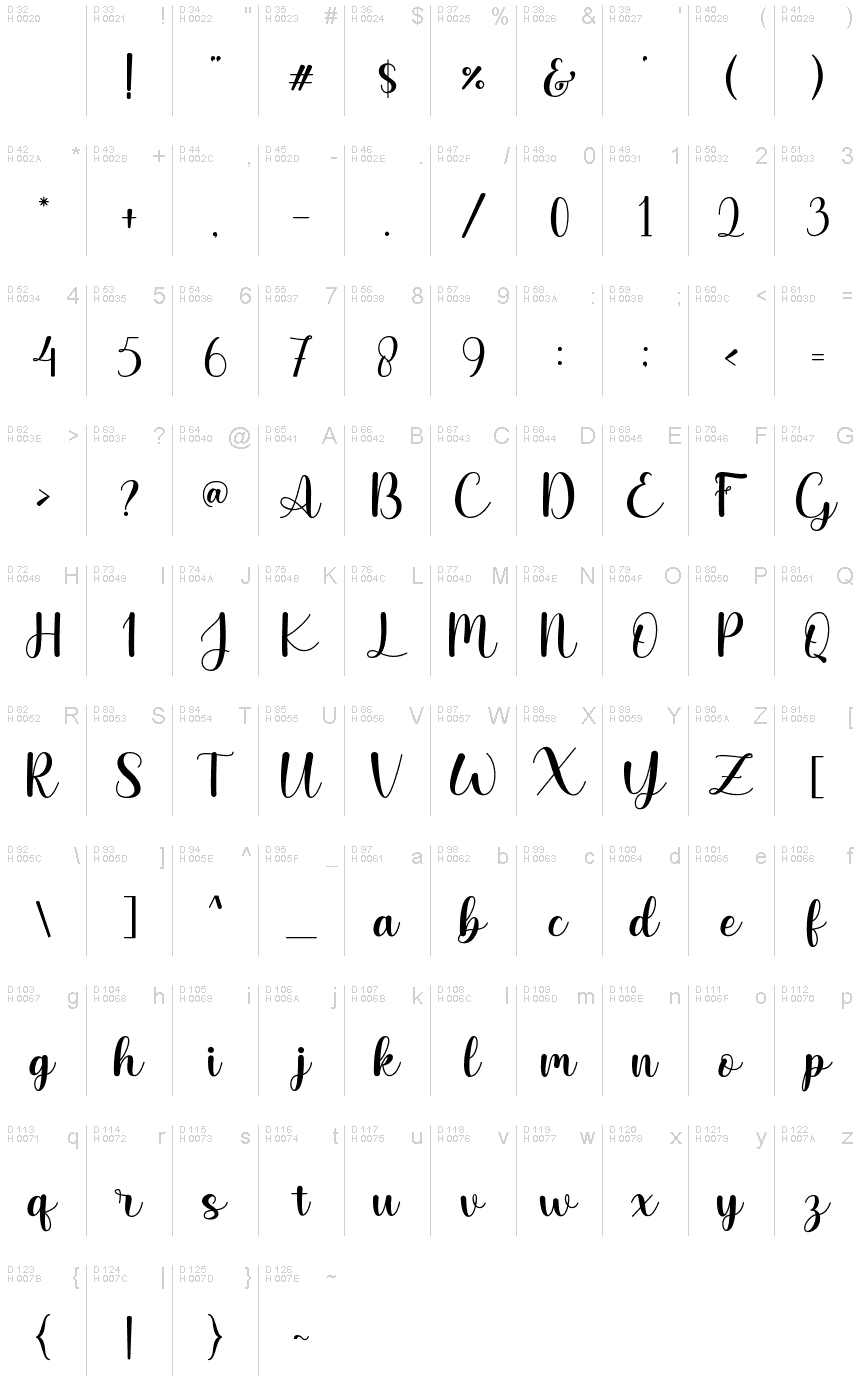
Hello Amellia
Hello Amellia is a beautiful calligraphy font created by JDStudio. This elegant typeface is perfect for creating timeless invitations, logos, and branding projects with sophisticated style.